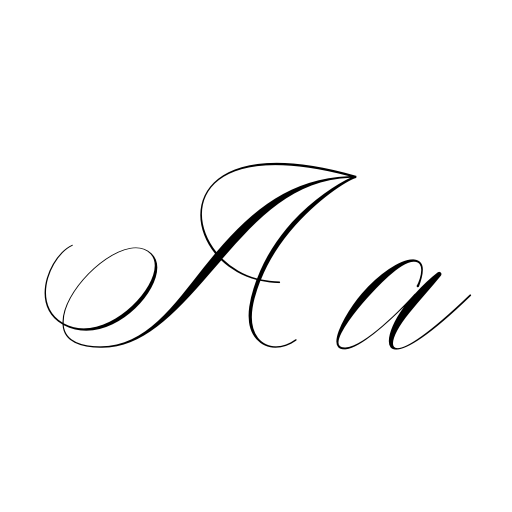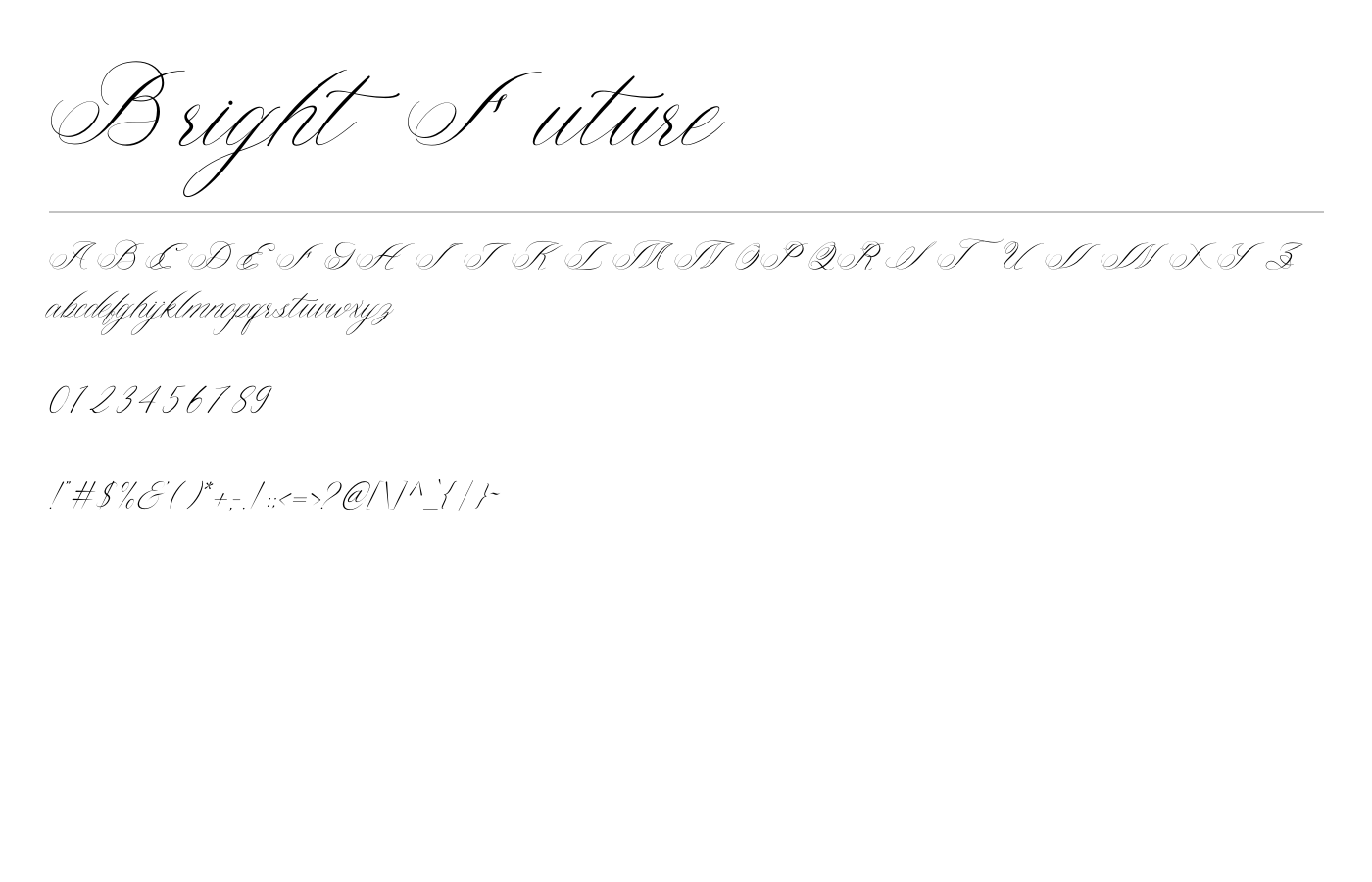
Bright Future is a delicate and elegant script font characterized by its thin, flowing strokes and graceful, calligraphic style. Its refined letterforms and high contrast between thick and thin lines create a sophisticated, luxurious feel, making it perfect for wedding invitations, upscale branding, and elegant editorial design where a touch of classic beauty is desired.
Bright Future Font
About Bright Future Font
| Font family | Bright Future Font |
| Designer | WinType / Winarko |